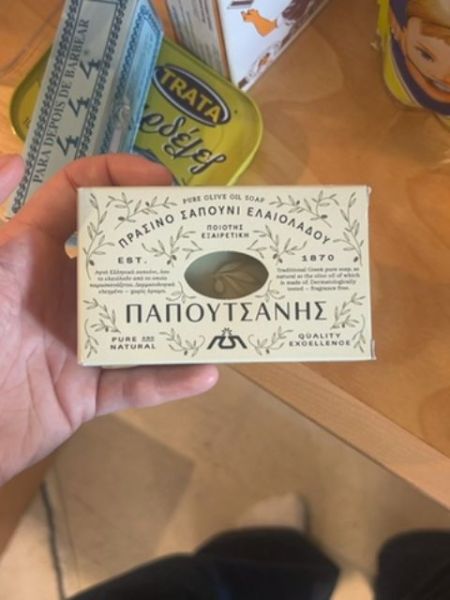
Papoutsanis Olive Oil Soap
A natural soap made from pure olive oil, known for its moisturizing properties and gentle cleansing.
1870
Greece
The typography combines traditional Greek lettering with a classic serif font in English. The Greek letters are bold and prominent, conveying authenticity and heritage, while the English text complements it with a timeless elegance, enhancing readability.
The packaging is classic and understated, featuring a cut-out window allowing visibility of the product inside. It is adorned with olive branches and Greek lettering, providing a nod to its traditional origins.
- Made from pure olive oil.
- Known for its exceptional quality.
- Produced since 1870.